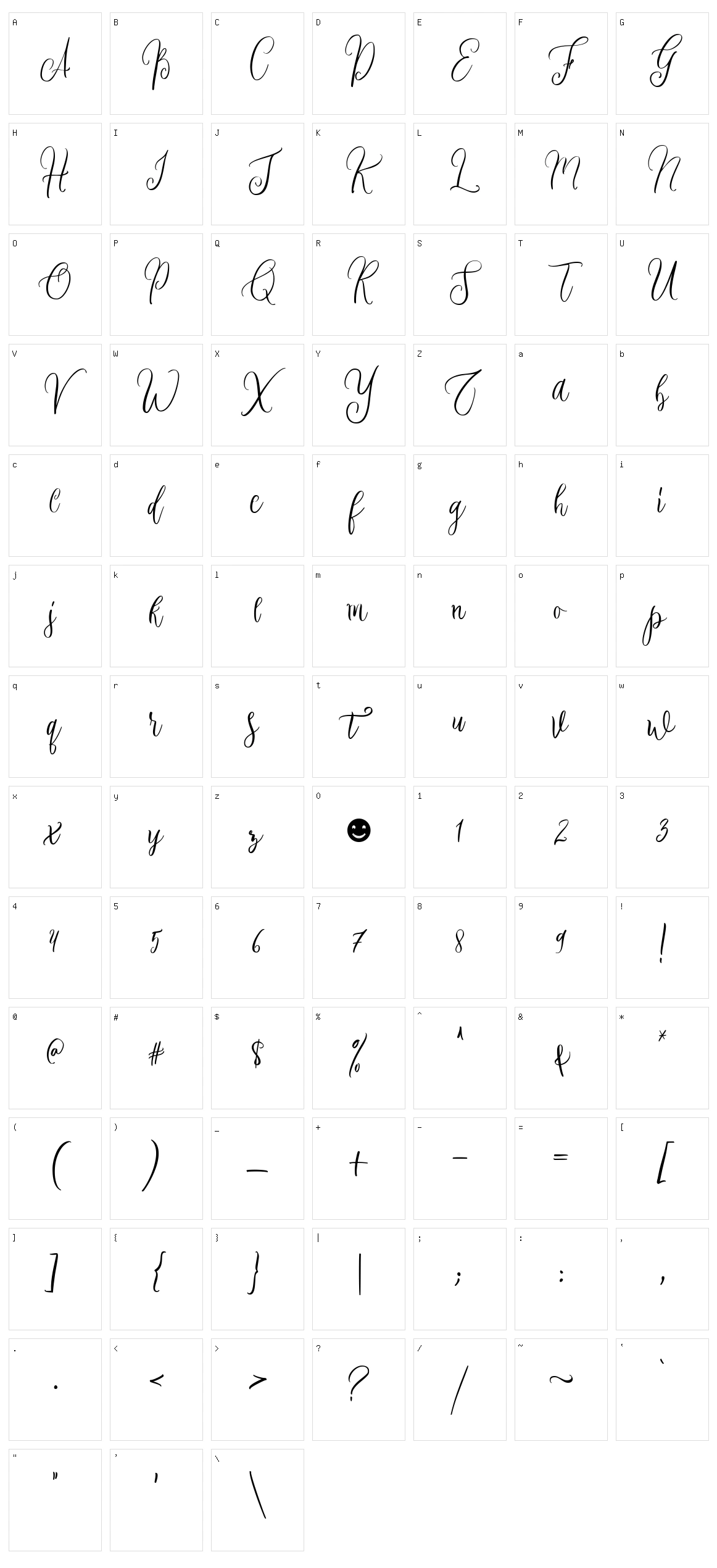
The free font Beauty Green is carefully designed by Bonjour Type, showcasing a thoughtful balance of creativity and usability and falls under the Script font style. When you download the ZIP file, it contains only 75.14 KB of font files, making it lightweight and quick to download. Please review the license details below to understand permitted usage and distribution rights. If license information is not available, we recommend using this font for personal projects only or contacting the author directly for commercial usage permissions.